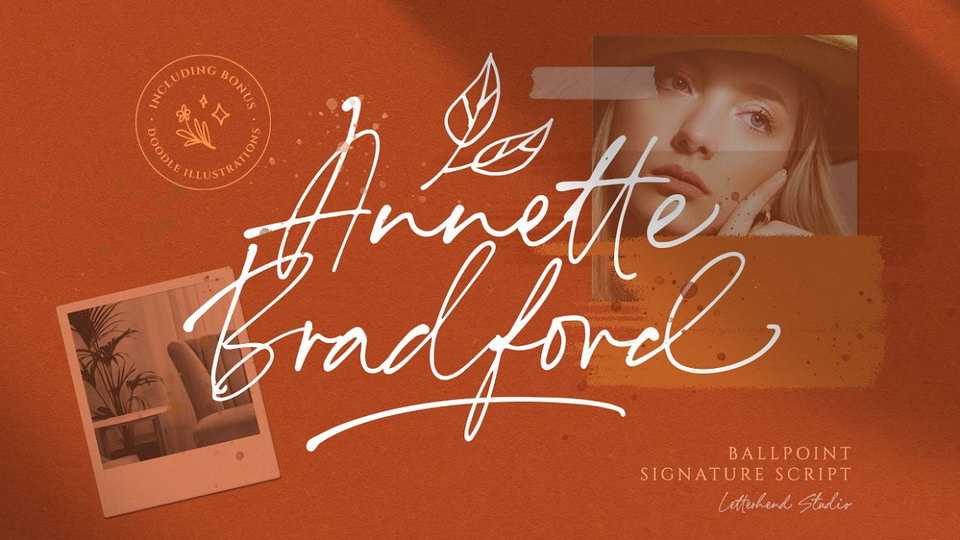
Download Annette Bradford font, a signature style typeface made from a natural ballpoint handwriting. If you need digital signature or natural hand writing for quotes, Annette Bradford is the perfect typeface for you!